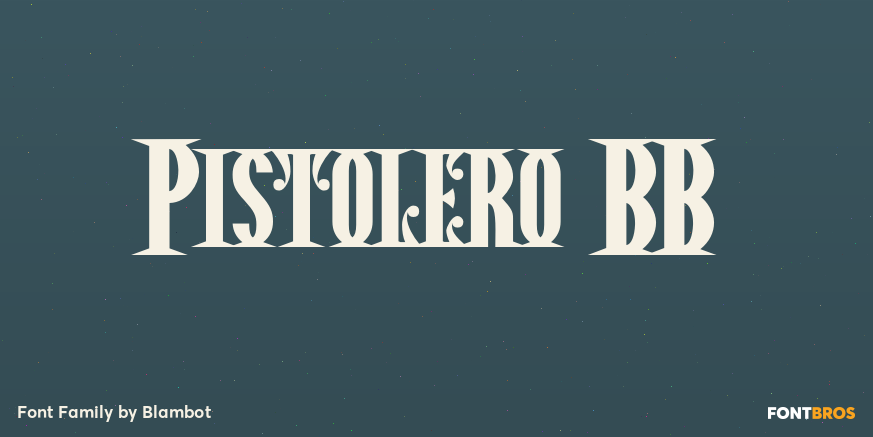
Pistolero BB
About Pistolero BB
This font has been on the range so long it smells like chipotle chilis, cracked leather and 5-card stud. There\’s a cold steel .45 Peacemaker on your hip and that mysterious stranger is staring you down from across the way. He\’s going to draw any second…